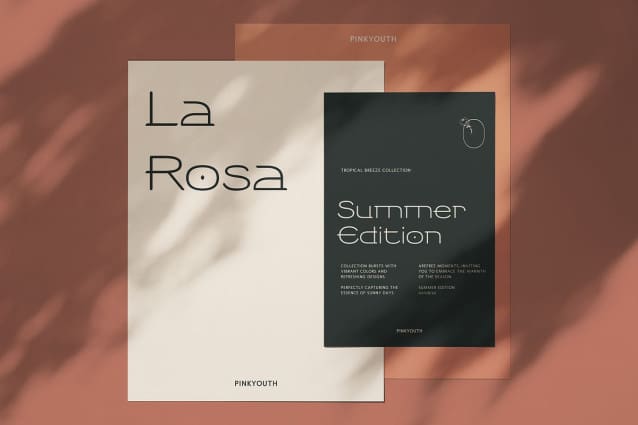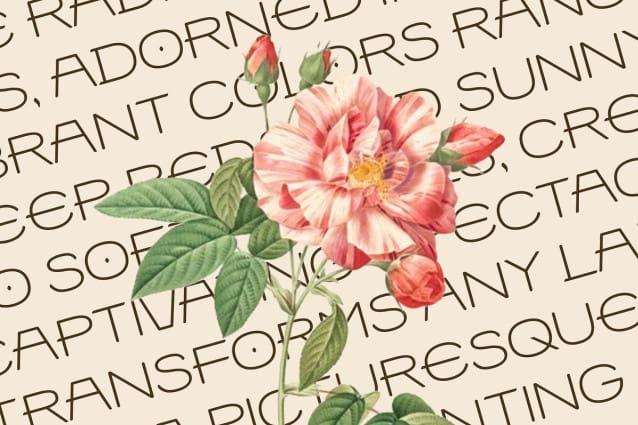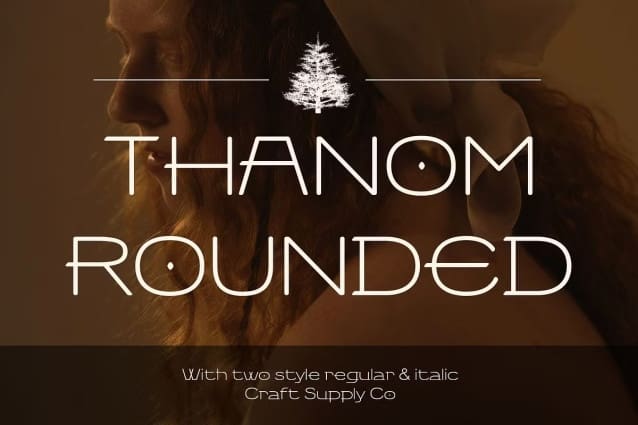
Thanom Rounded Font
Thanom Rounded Font is a modern display font that combines sleek, futuristic design with soft, rounded edges. The bold and innovative shapes exude a sense of forward-thinking modernity, while the curved edges add a friendly and approachable quality. This balance creates a unique font that feels cutting-edge yet welcoming, making it ideal for contemporary design projects.
Sleek, Cutting-Edge Aesthetic with Soft Elegance The rounded forms of Thanom Rounded offer a striking contrast to its sharp, bold lines, creating a visually appealing fusion of modernity and warmth. The futuristic design conveys innovation and technological progress, while the smooth curves soften the overall look, making it suitable for both digital and print projects.
Perfect for Tech Branding and Digital Designs Thanom Rounded is an excellent choice for technology branding, digital interfaces, and futuristic-themed projects. Its clean and sleek design ensures high readability, while the rounded shapes make it approachable and user-friendly. Whether it’s for website headers, app interfaces, or cutting-edge product branding, this font provides a stylish and contemporary feel that stands out.
Versatile and Modern Typography for the Future For any project seeking a mix of futuristic appeal and readability, Thanom Rounded is the ideal solution. Its innovative design ensures a strong visual presence, while the soft curves enhance its versatility across various applications.